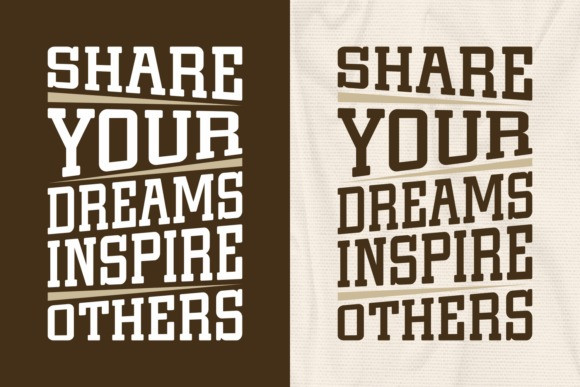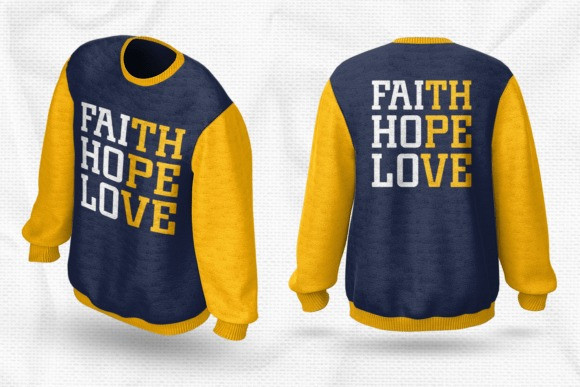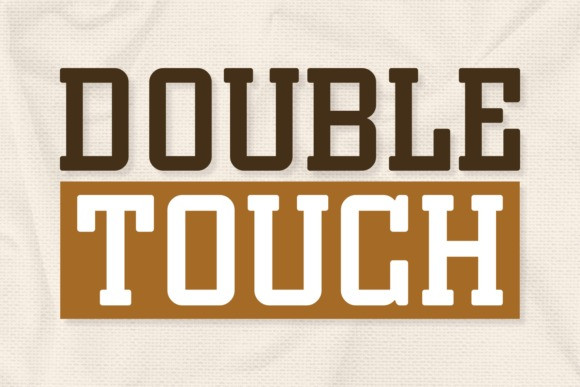
Double Touch Font
Double Touch Font, a Slab Serif font that boasts a distinct vintage charm. Its thick contours are accentuated to create a robust design, making it perfect for apparel branding and authentic book cover illustration. This clean font effortlessly elevates the aesthetic of any book, enveloping the reader in a time-era specific allure. Empower your brand’s unique identity with Double Touch, a font that enhances the impact of your cards, covers, and greeting cards.
The “Double Touch” font is also great for crafting engaging logotypes, adorning the pages of magazines, and elevating the visual appeal of unique packaging designs. It brings quotations life, enhances the graphical interface of T-shirts, and it ranks high with trending typography. This seasonal font offers multilingual support, making it a versatile accessory in the global world of design.